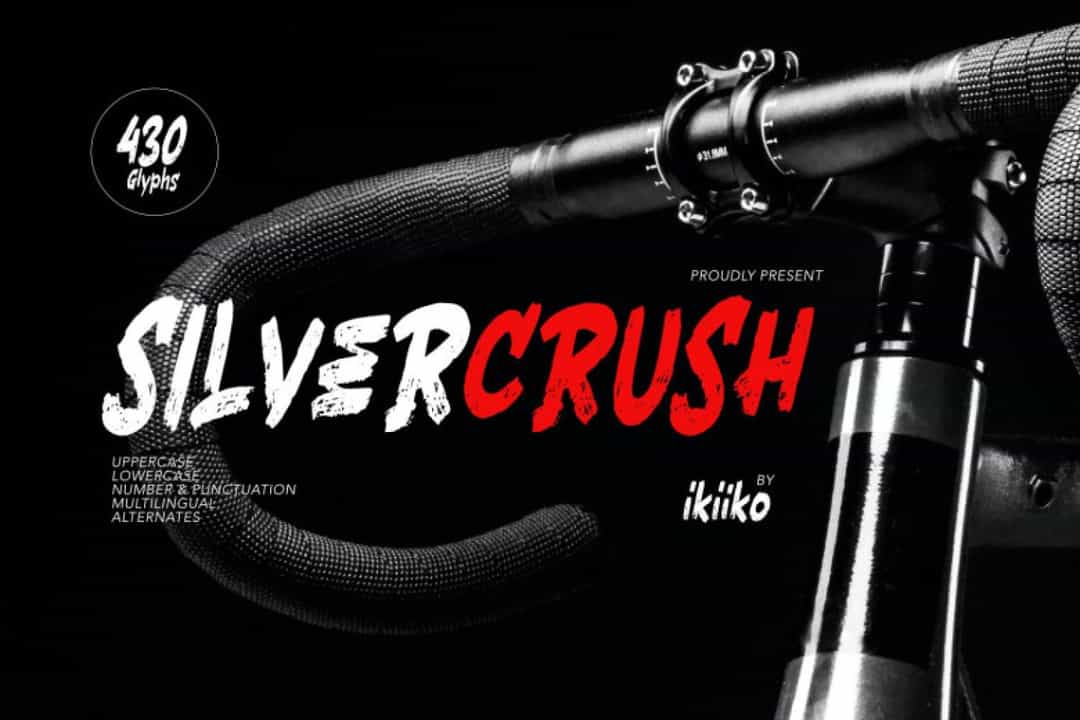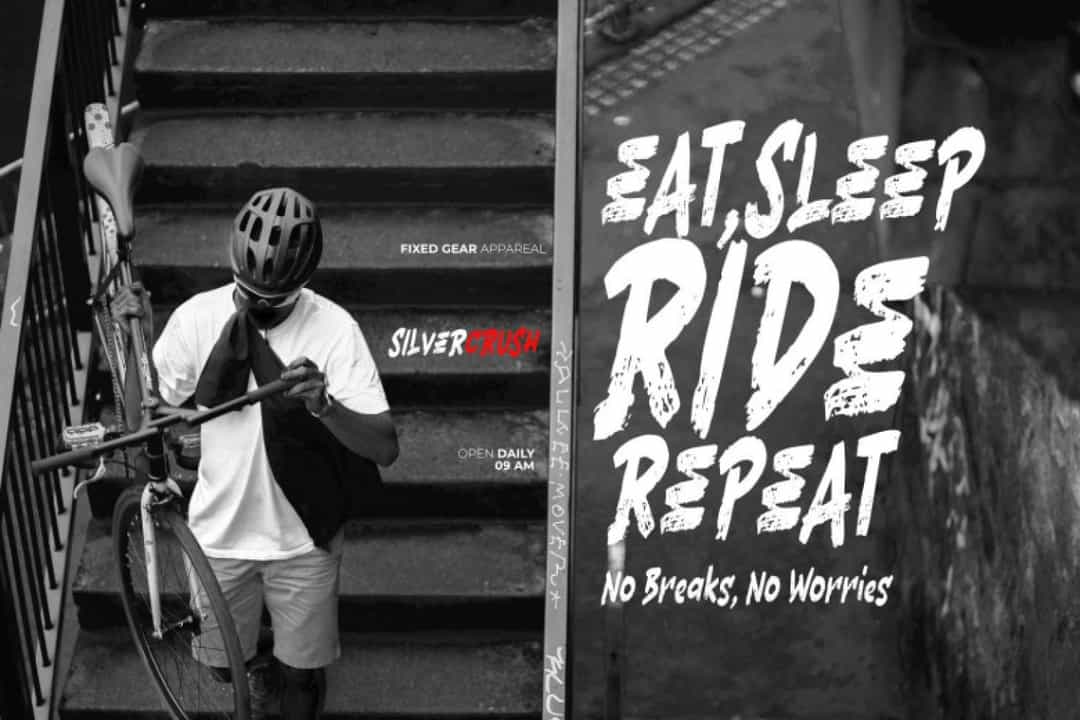
Silvercrush Brush Font was developed by ikiiko and features rough strokes with strong characters for street art applications. Silvercrush typeface works well for posters events or hipster magazines as well as urban brands fashion quotes fashion and all elements that need street style designs.